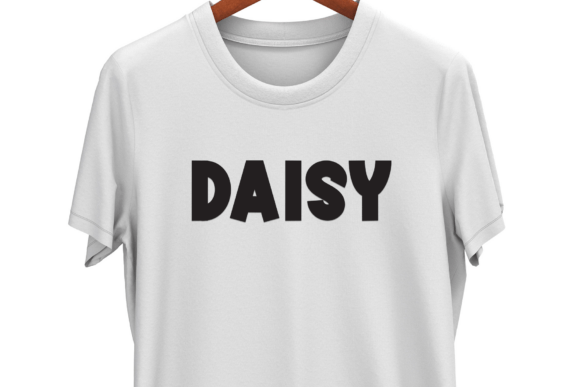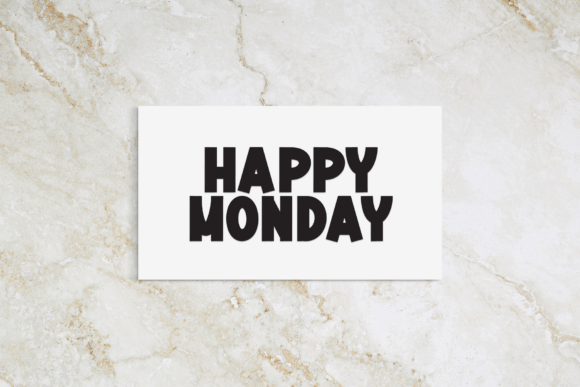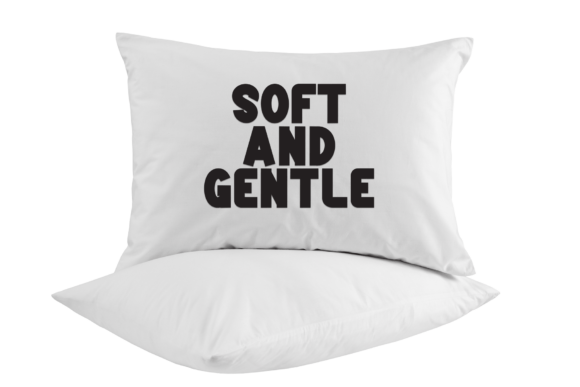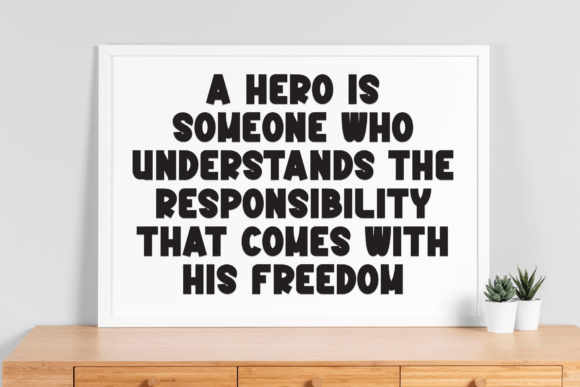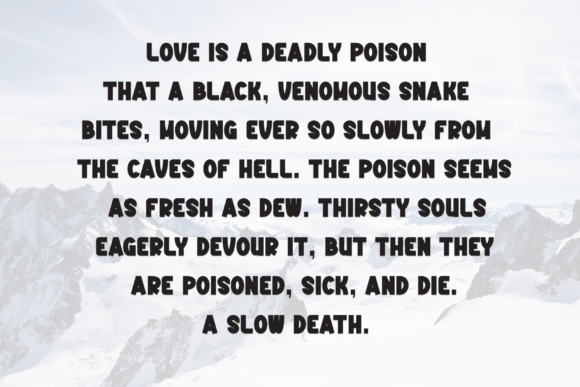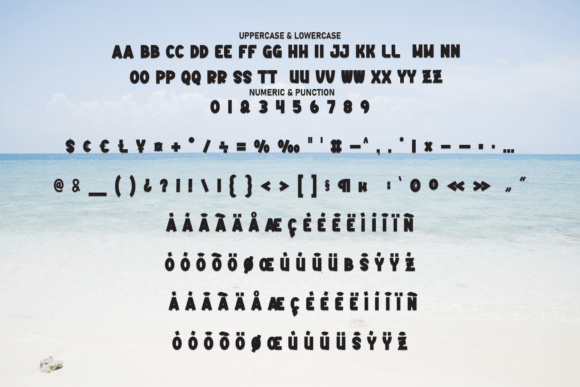
Introducing Beach White Font: The Perfect Blend of Modern Simplicity and Playful Charm
Are you tired of using fonts that are too formal or too dull for your design projects? Look no further than Beach White Font, a casual display font that brings a fresh and friendly touch to any project. With its modern simplicity, playful vibe, and clean design, Beach White Font is perfect for designers and crafters looking to add a relaxed yet stylish feel to their work.
What Makes Beach White Font Stand Out?
Beach White Font boasts a unique combination of clean shapes, soft edges, and well-balanced letterforms that capture the essence of relaxed design while maintaining clarity and style. Its modern simplicity makes it an excellent choice for a wide range of design projects, from posters and branding to packaging and social media graphics.
Key Features of Beach White Font
• Clean Shapes: Beach White Font features clean and simple shapes that provide a clear and elegant look, making it perfect for designs that require a touch of sophistication.
• Soft Edges: The soft edges of Beach White Font add a playful and approachable vibe, making it ideal for designs that require a friendly and relaxed feel.
• Well-Balanced Letterforms: The well-balanced letterforms of Beach White Font ensure that the font is easy to read and understand, making it perfect for designs that require clarity and style.
Beach White Font is an incredibly versatile font that can be used for a wide range of design projects, including:
• Posters: Add a fresh and friendly touch to your posters with Beach White Font, perfect for advertising, events, or promotional materials.
• Branding: Use Beach White Font to create a unique and memorable brand identity that reflects your company’s personality and style.
• Packaging: Add a touch of elegance and sophistication to your packaging designs with Beach White Font, perfect for product labels, tags, or wrappers.
• Social Media Graphics: Make your social media graphics stand out with Beach White Font, perfect for creating engaging and eye-catching content.
Why Choose Beach White Font?
Beach White Font offers a unique combination of readability and personality, making it an excellent choice for designers and crafters looking to add a touch of style and sophistication to their work. With its:
• Eye-Catching Appeal: Beach White Font is designed to grab attention and make a lasting impression, perfect for designs that require a bold and stylish statement.
• Versatile Character: Beach White Font can be used for a wide range of design projects, from formal to informal, making it an excellent addition to any designer’s font library.
• Readability: Beach White Font is designed to be easy to read and understand, making it perfect for designs that require clarity and style.
In conclusion, Beach White Font is a casual display font that offers a unique blend of modern simplicity and playful charm. With its clean design, soft edges, and well-balanced letterforms, it is perfect for designers and crafters looking to add a fresh and friendly touch to their work. Whether you’re working on a poster, branding project, packaging design, or social media graphic, Beach White Font is an excellent choice that delivers both readability and personality.